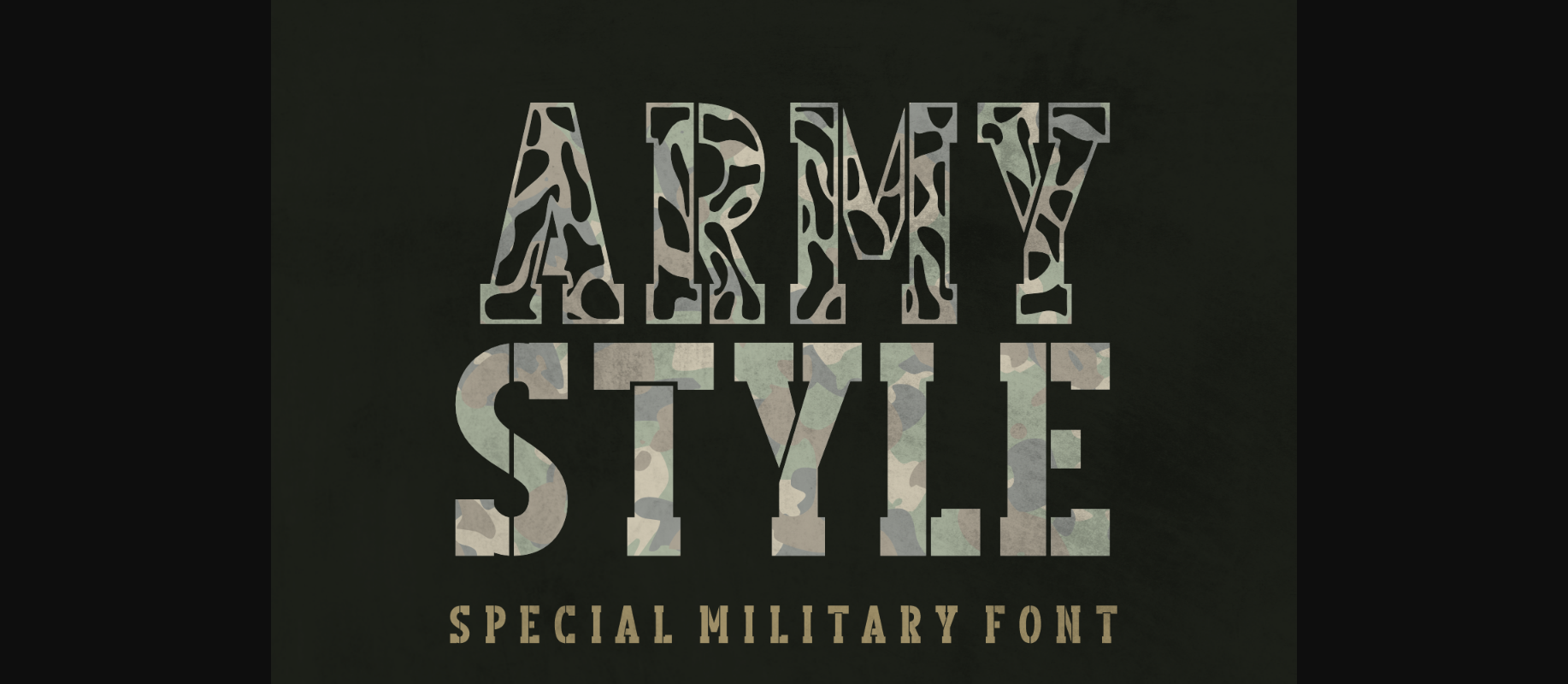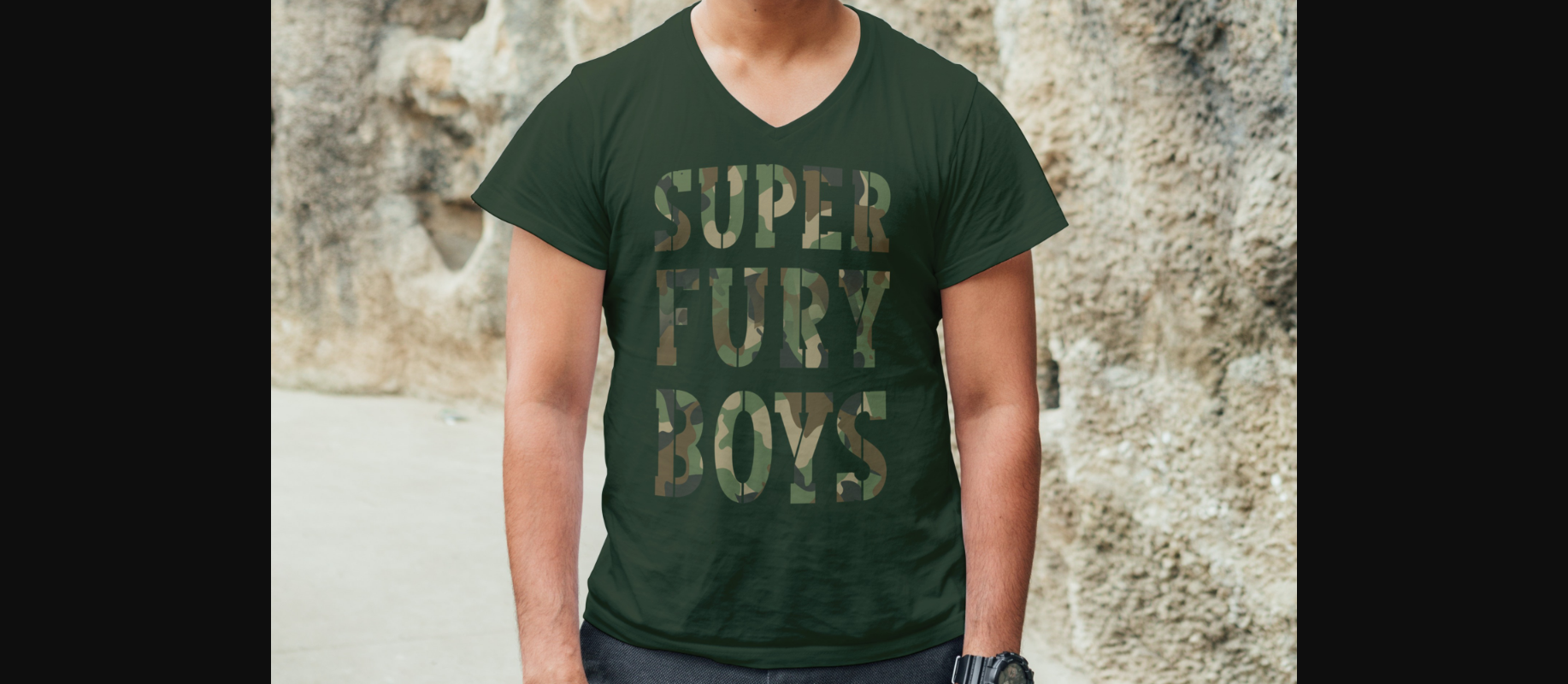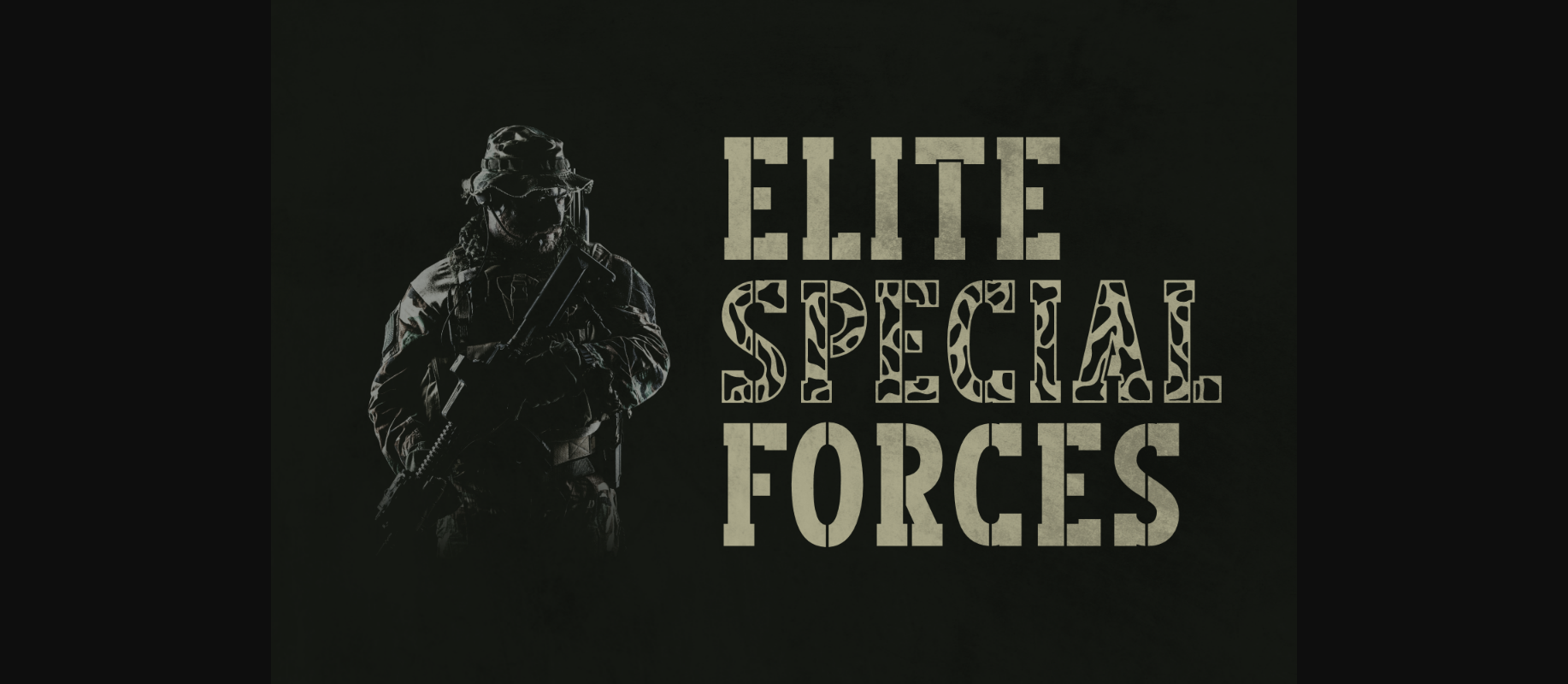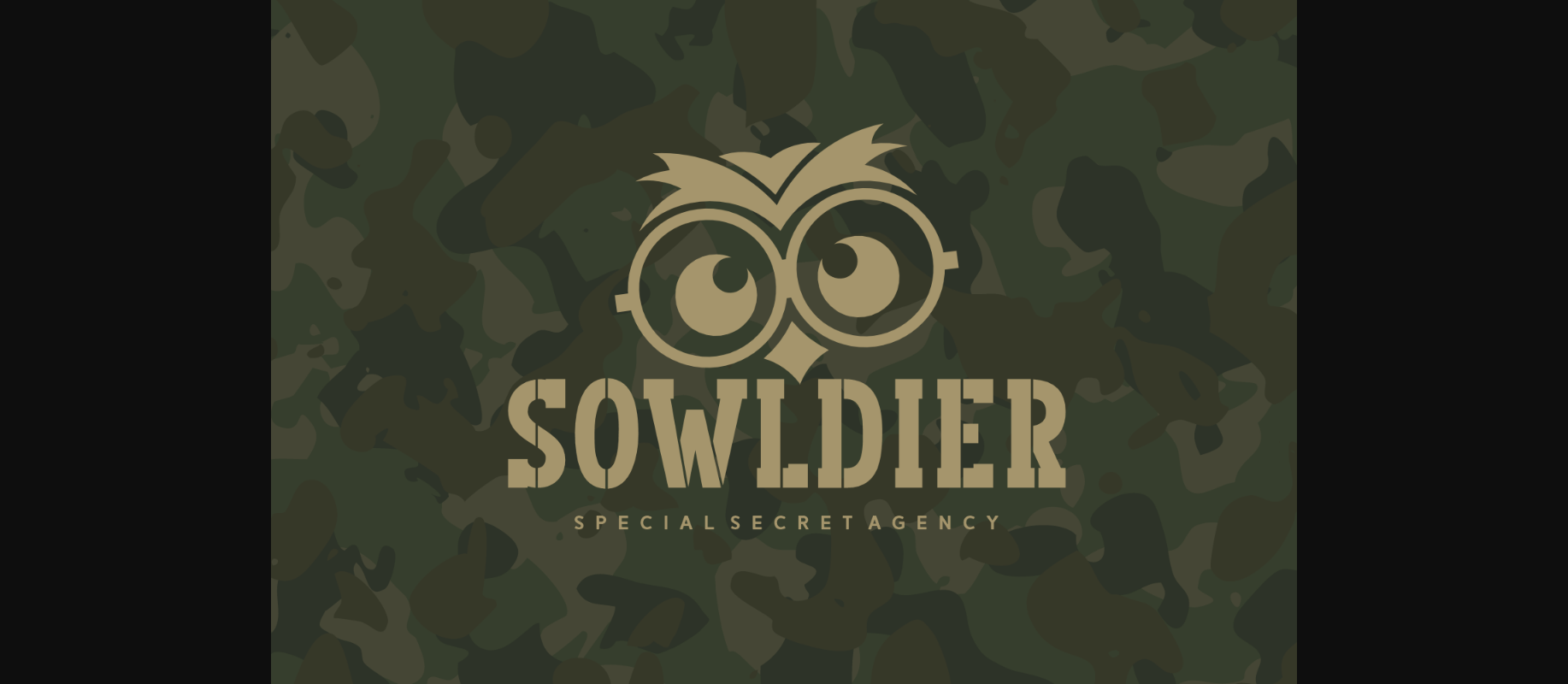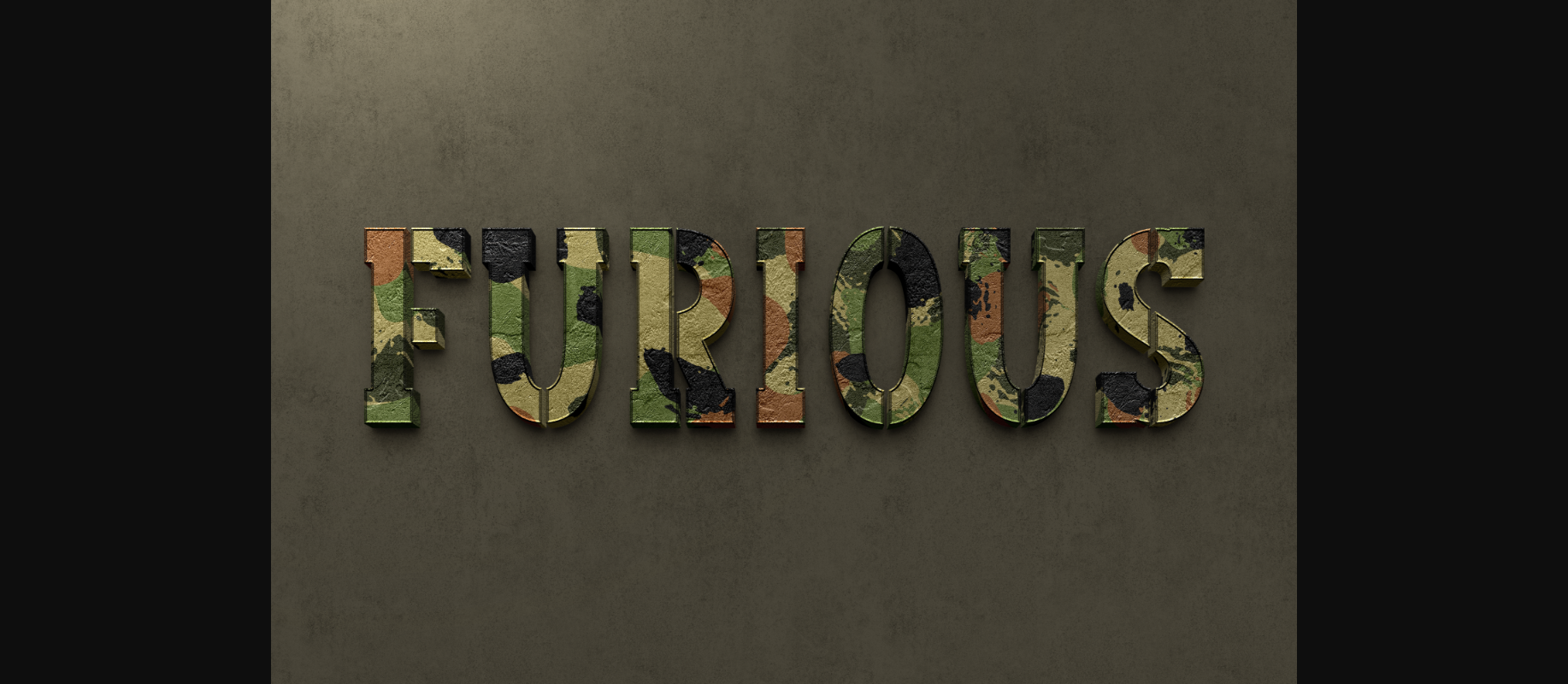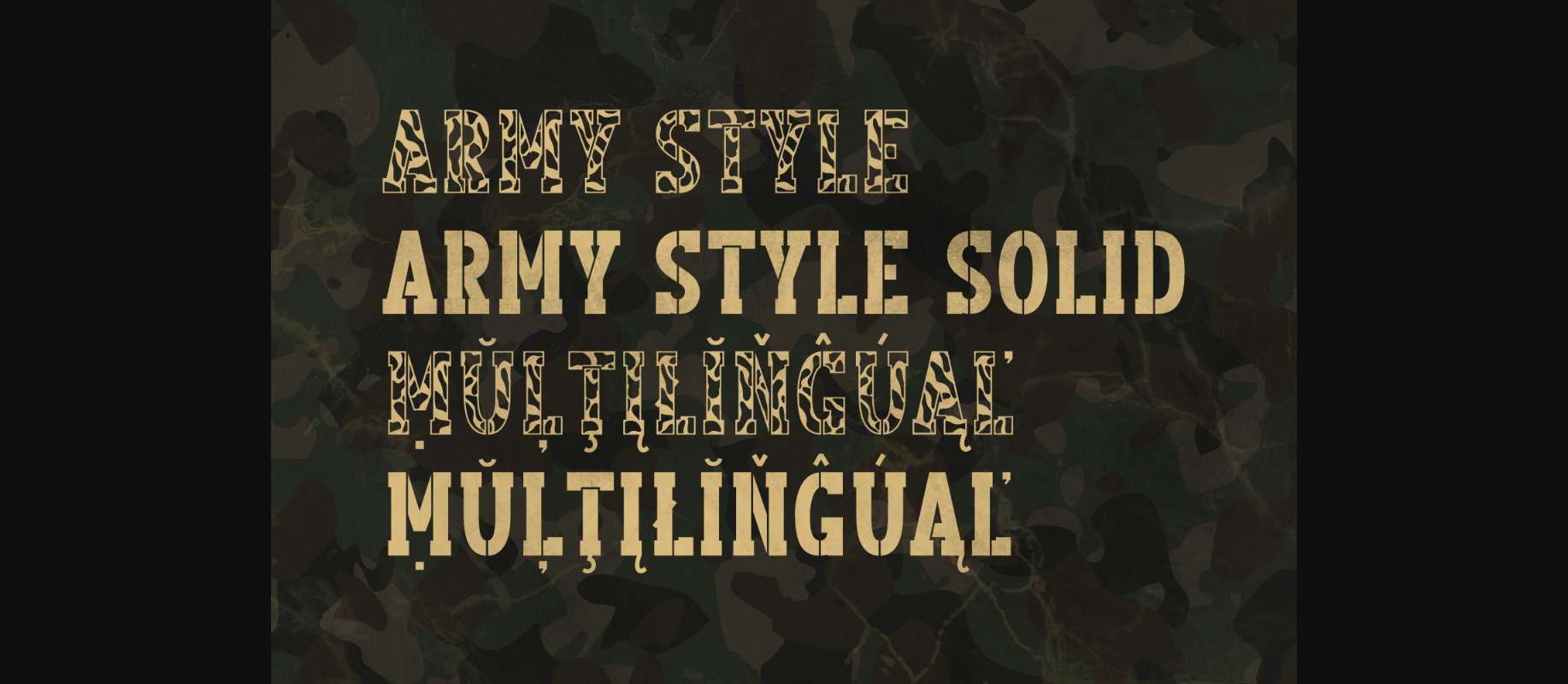
Army Style Font
About Army Style Font
Army Style is a cool decorative font. Its strong and assertive personality is perfect for t-shirts, stickers, headlines, posters, album covers, or anything that needs a military accent.